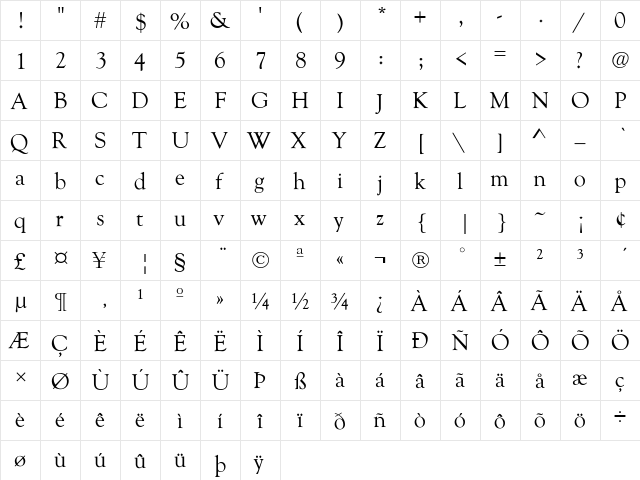
Goudy-Normal Regular
Design Context for Goudy-Normal Typeface
Goudy-Normal is a composed and adaptable typeface that performs quietly and consistently across a wide range of design contexts.
Pro Tip: Use Goudy-Normal in both headline and body roles to test its range before committing to a single application.